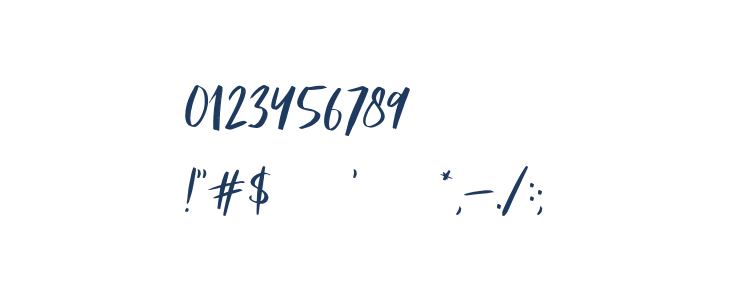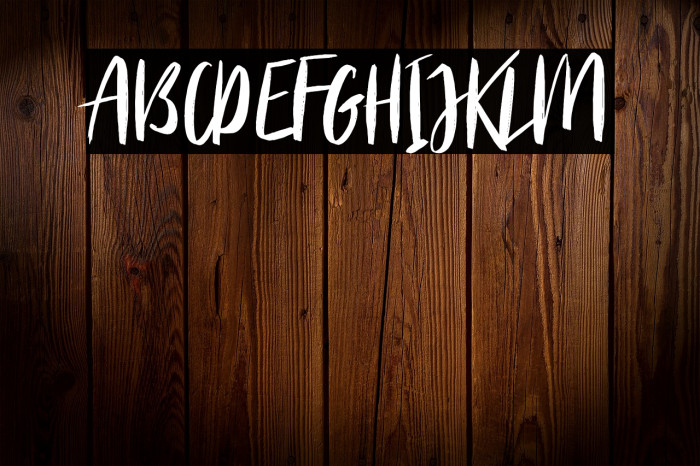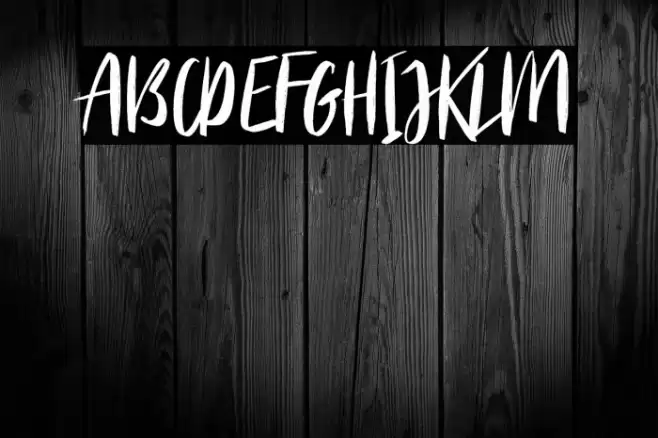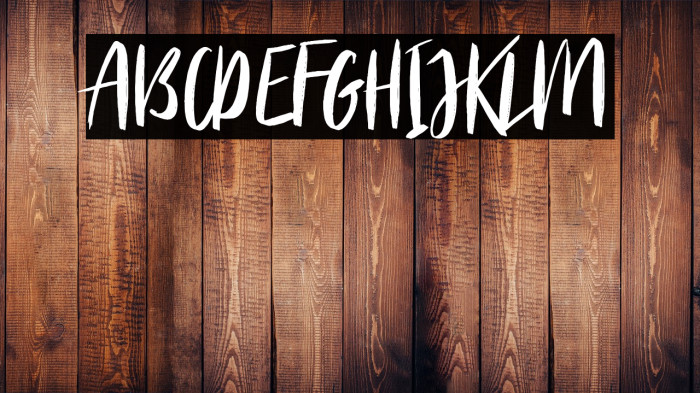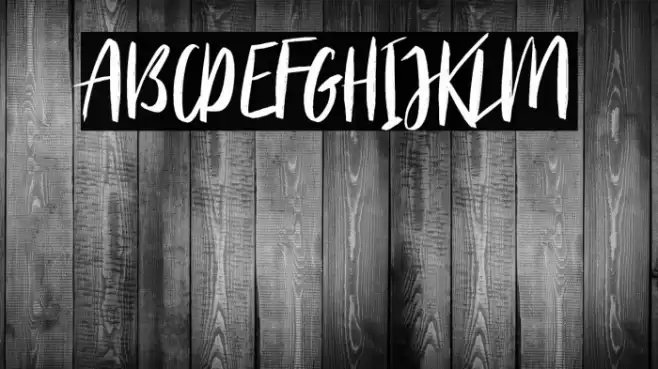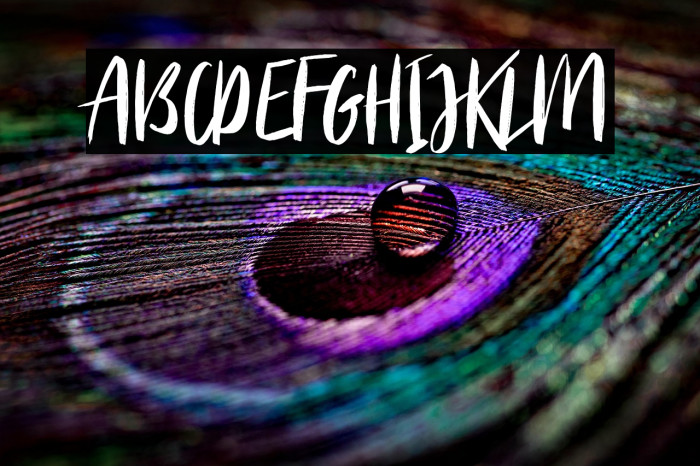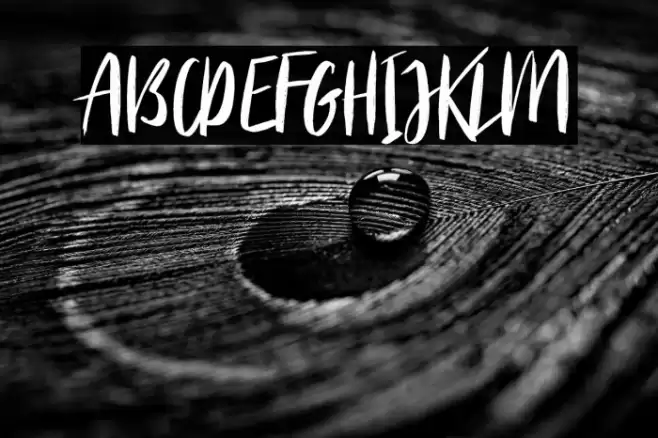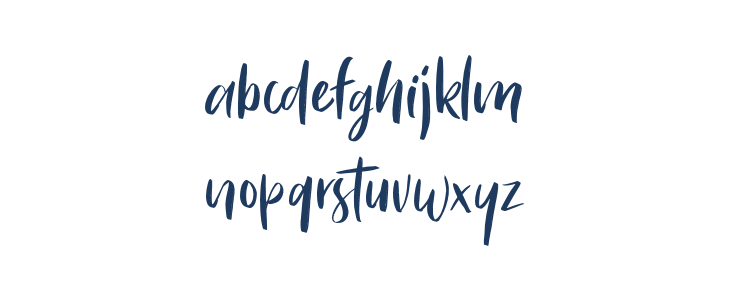
BitterRoseDEMO-Regular Font
BitterRoseDEMO-Regular Description
This font features a lively and expressive handwritten style, characterized by its bold and fluid strokes. The letters have a natural, brush-like appearance, giving it a dynamic and artistic feel. The uppercase and lowercase letters maintain a consistent style, with a slight slant that adds to its casual and informal look. The numbers and special characters are crafted with the same attention to detail, ensuring a cohesive appearance throughout. This font is perfect for projects that require a personal touch, such as invitations, greeting cards, and creative branding.
| Proposed Projects | Ideal for invitations, greeting cards, artistic branding, and creative projects. |